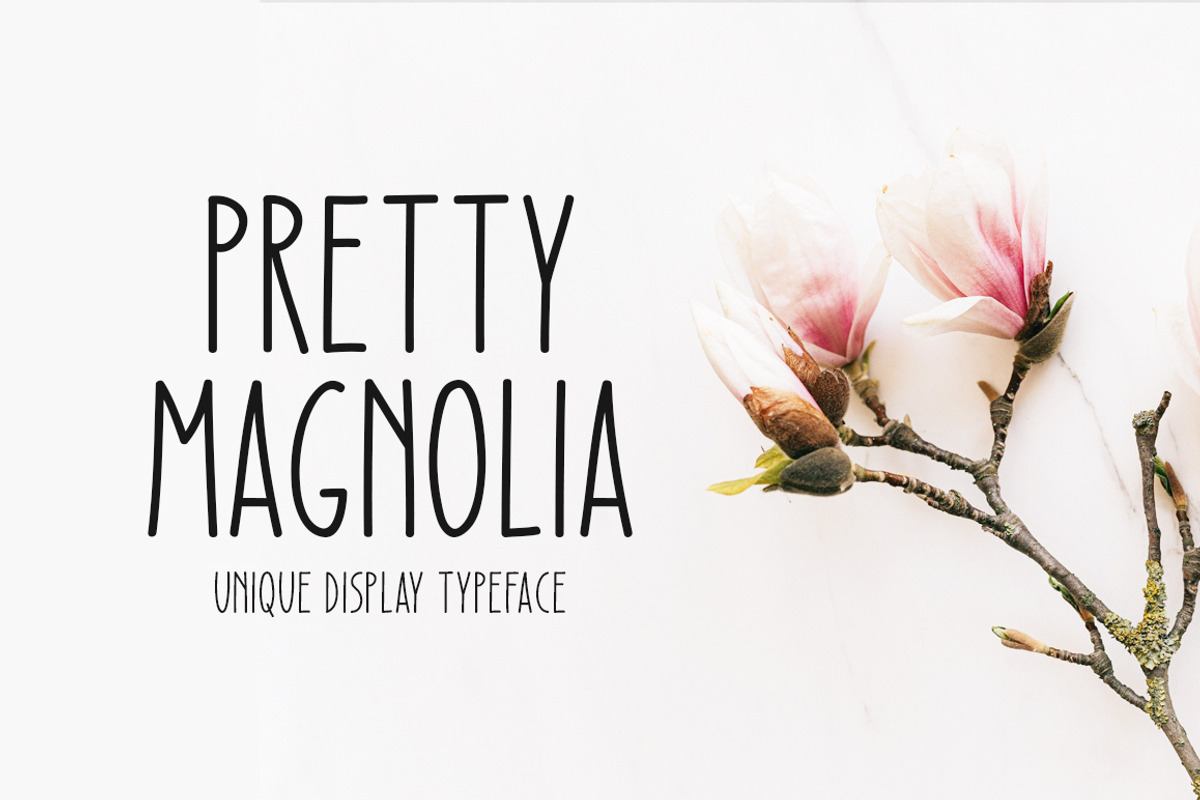
Please note, to use this font for commercial purposes, you must purchase the full version. Pretty Magnolia is an elegant and stylish typeface that combines beauty and sophistication with a touch of whimsy. Perfect for wedding invitations, logos, branding, and creative designs, this font adds a graceful, handwritten feel to any project. Whether you're creating romantic designs, a chic brand, or a stylish event invitation, Pretty Magnolia brings a unique and personal touch to your work. Test it out and enjoy free download access for personal use. Experience the charm and elegance of Pretty Magnolia Typeface Free Download before purchasing the commercial license. Add a refined, artistic touch to your designs with Pretty Magnolia.